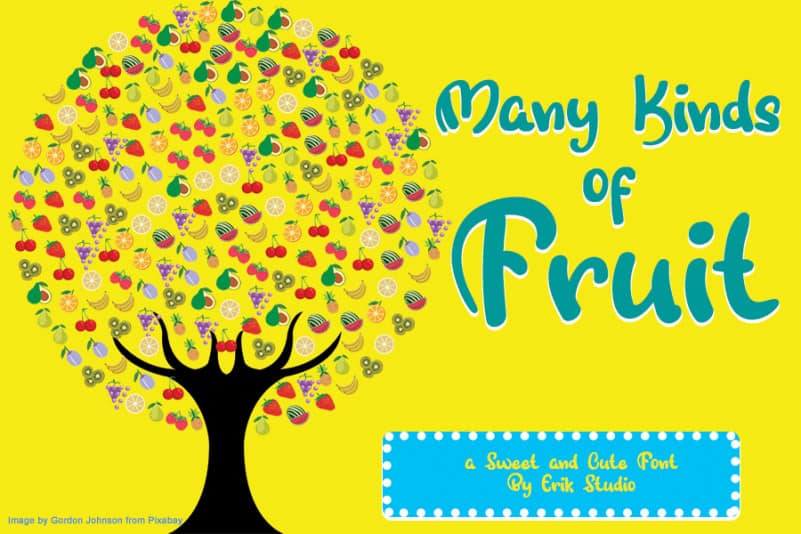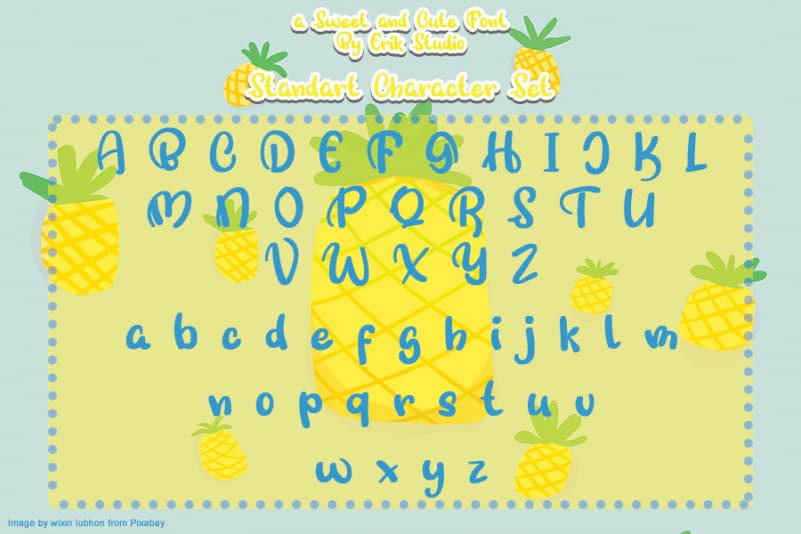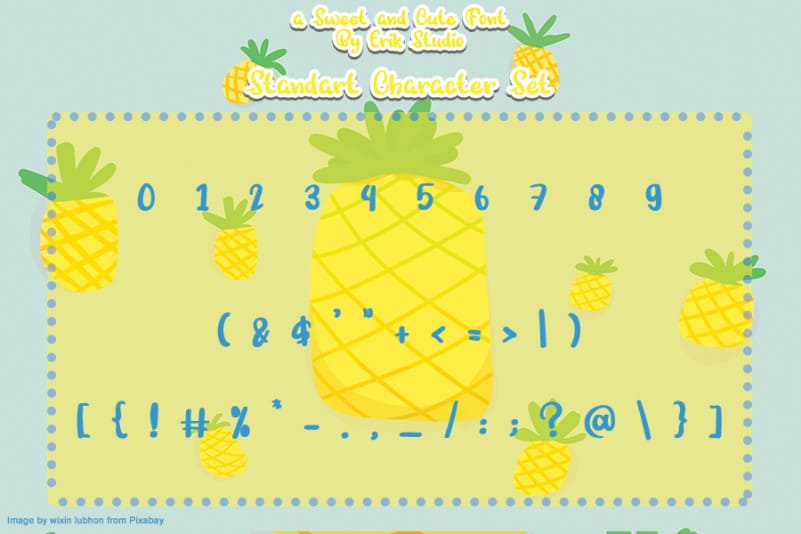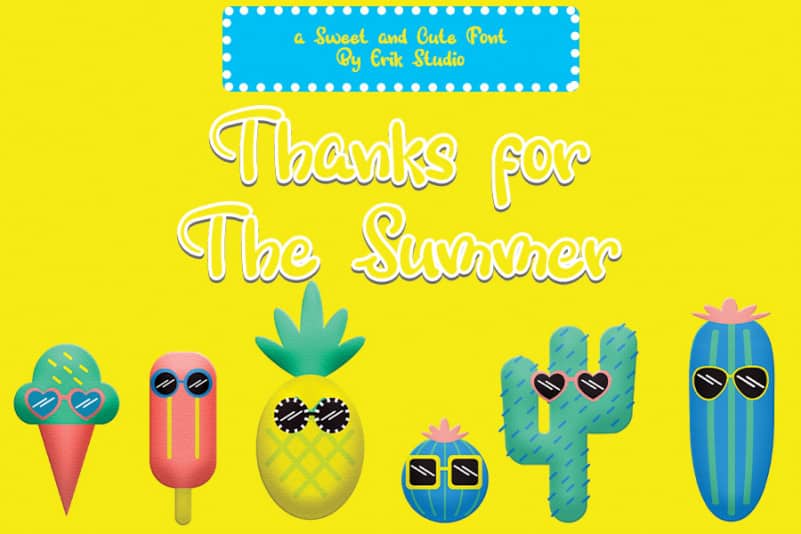
Sweet Pineapple Display Font
Sweet Pineapple Display Font is a romantic and sweet calligraphy typeface with characters that dance along the baseline. Dainty and joyful, this font will be ideal for writing wedding invitations, cards or any other design that may need a romantic, personalized touch!
Erik Studio